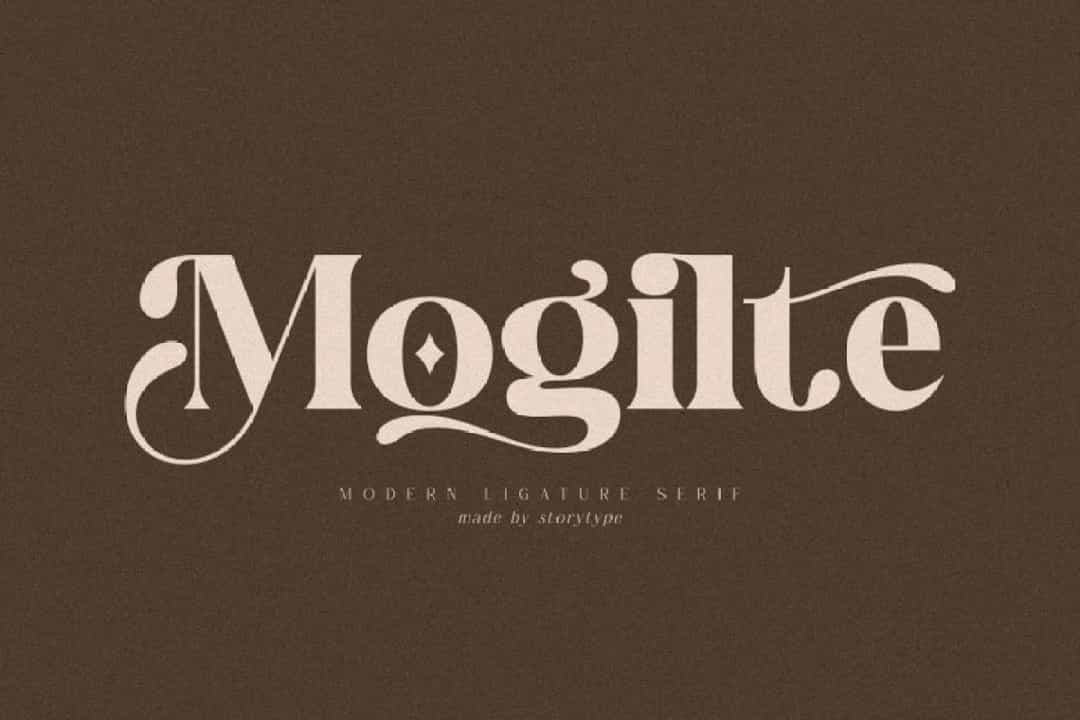
Mogilte is an elegant serif typeface with classic and contemporary features that stands out with its distinct style and contemporary appearance. Perfect for creating stylish logos, movie or book name designs, fashion clothing brand name designs, magazine letters and quotes and much more.